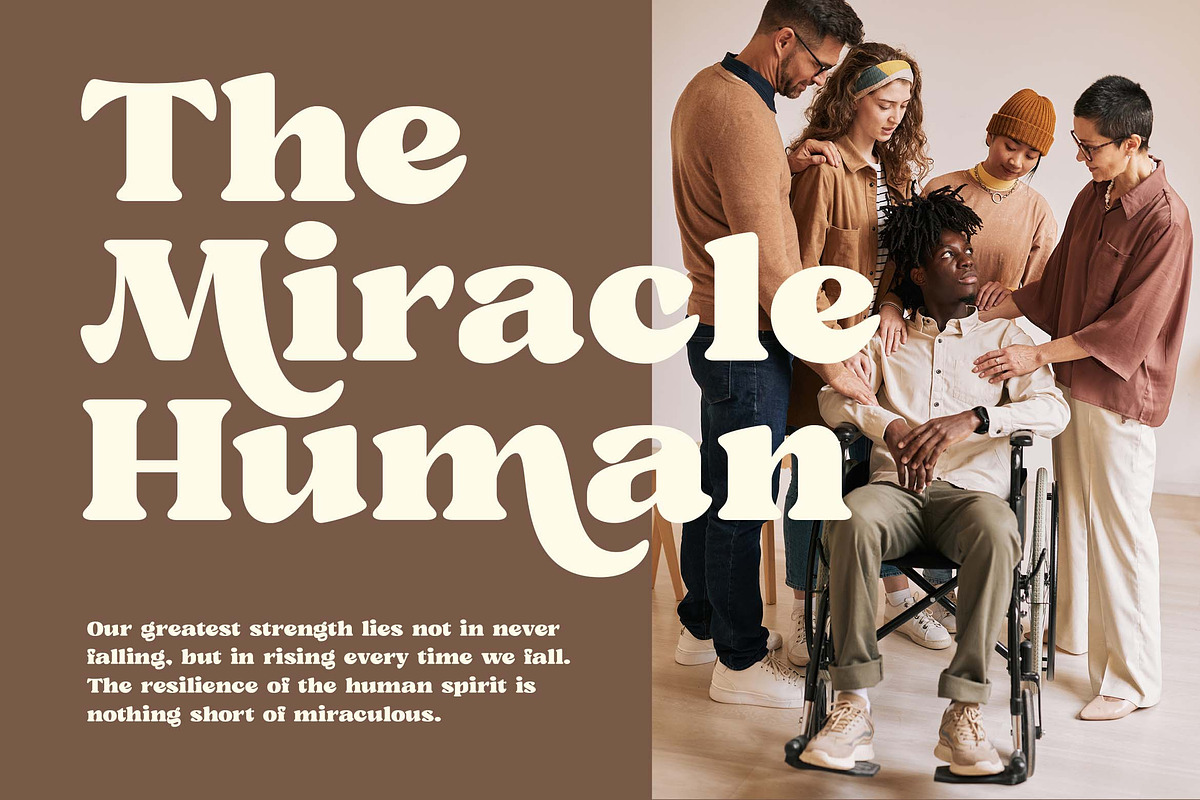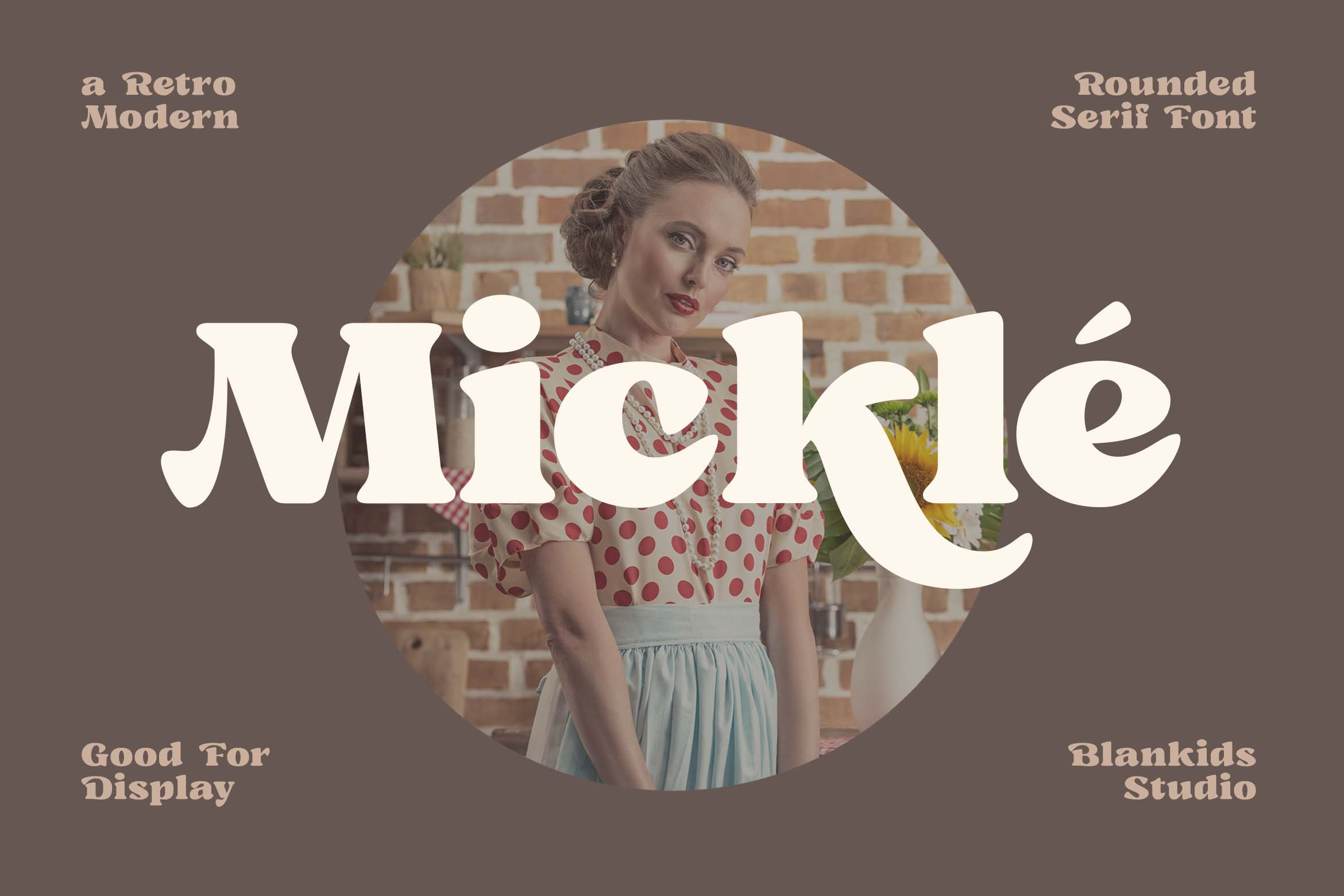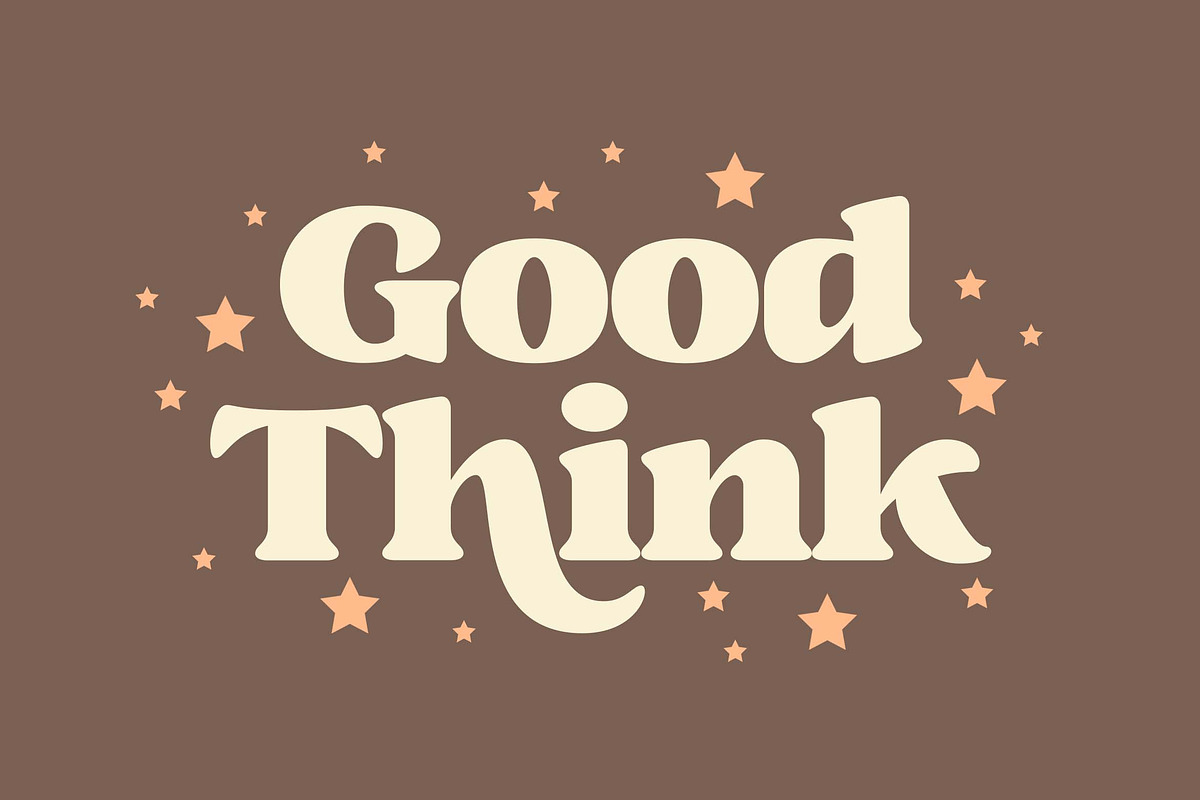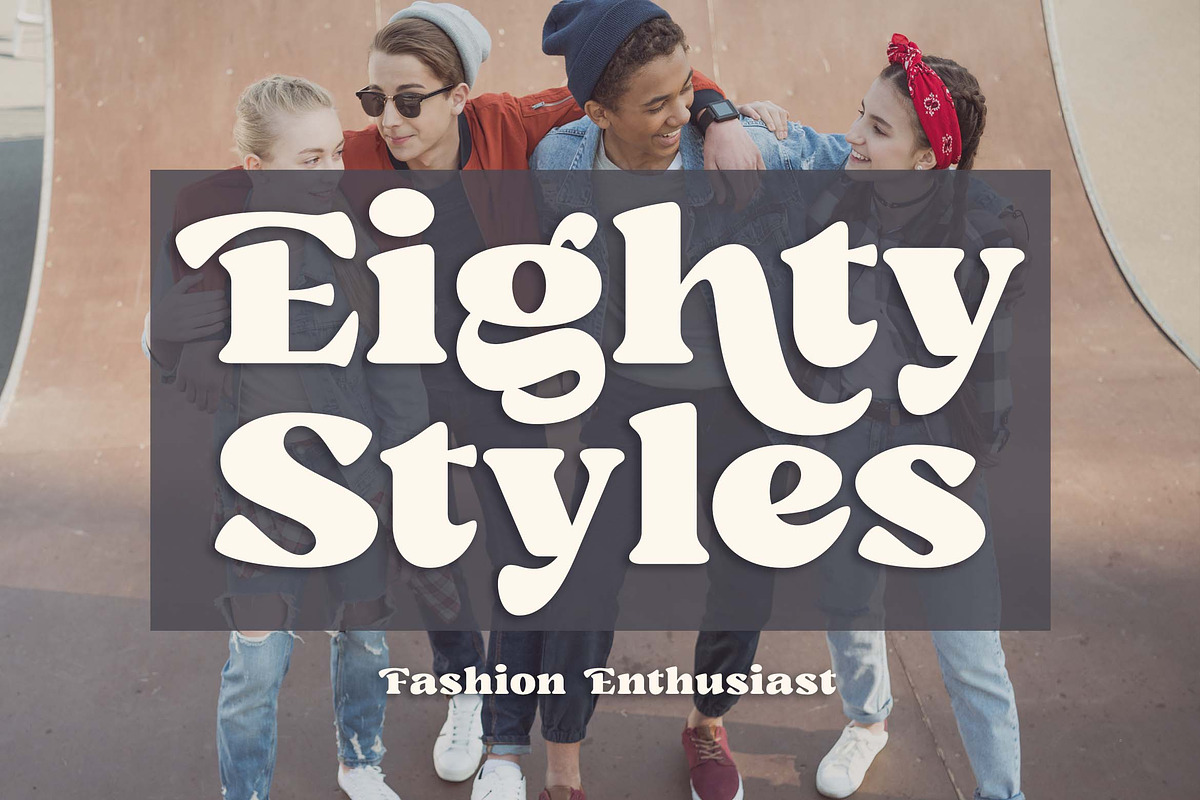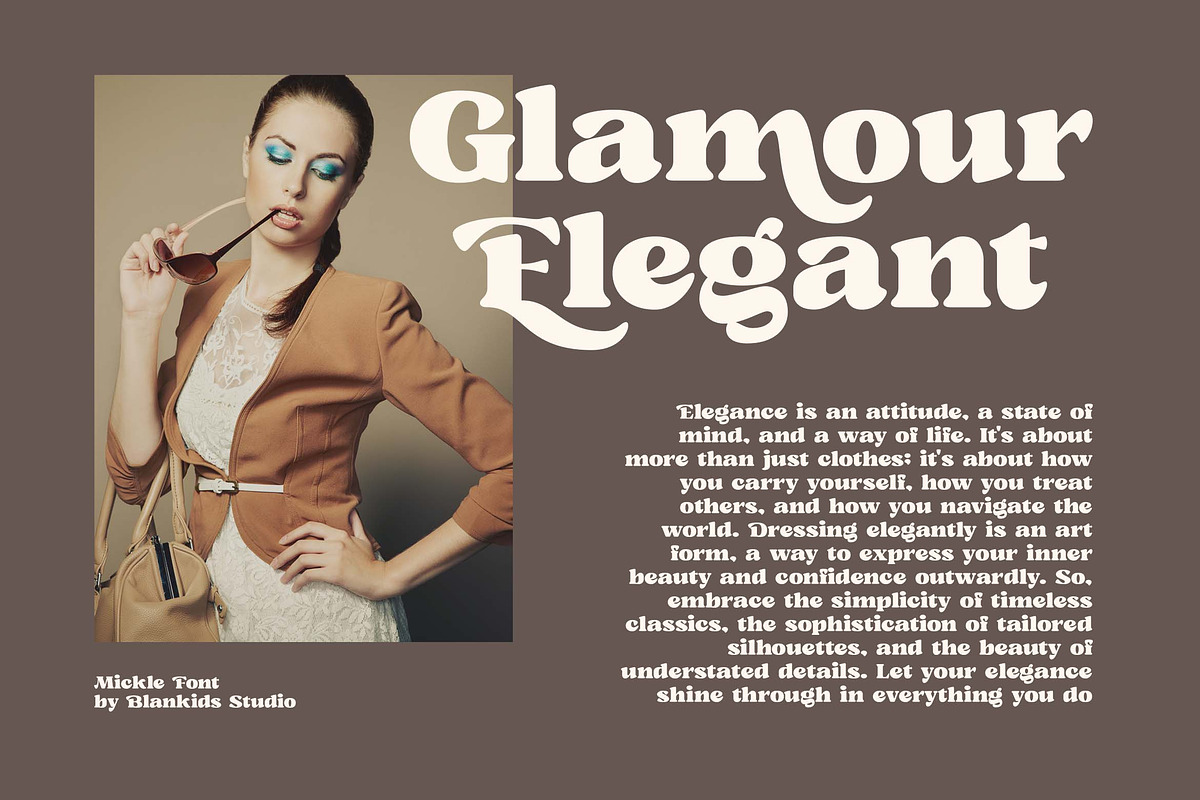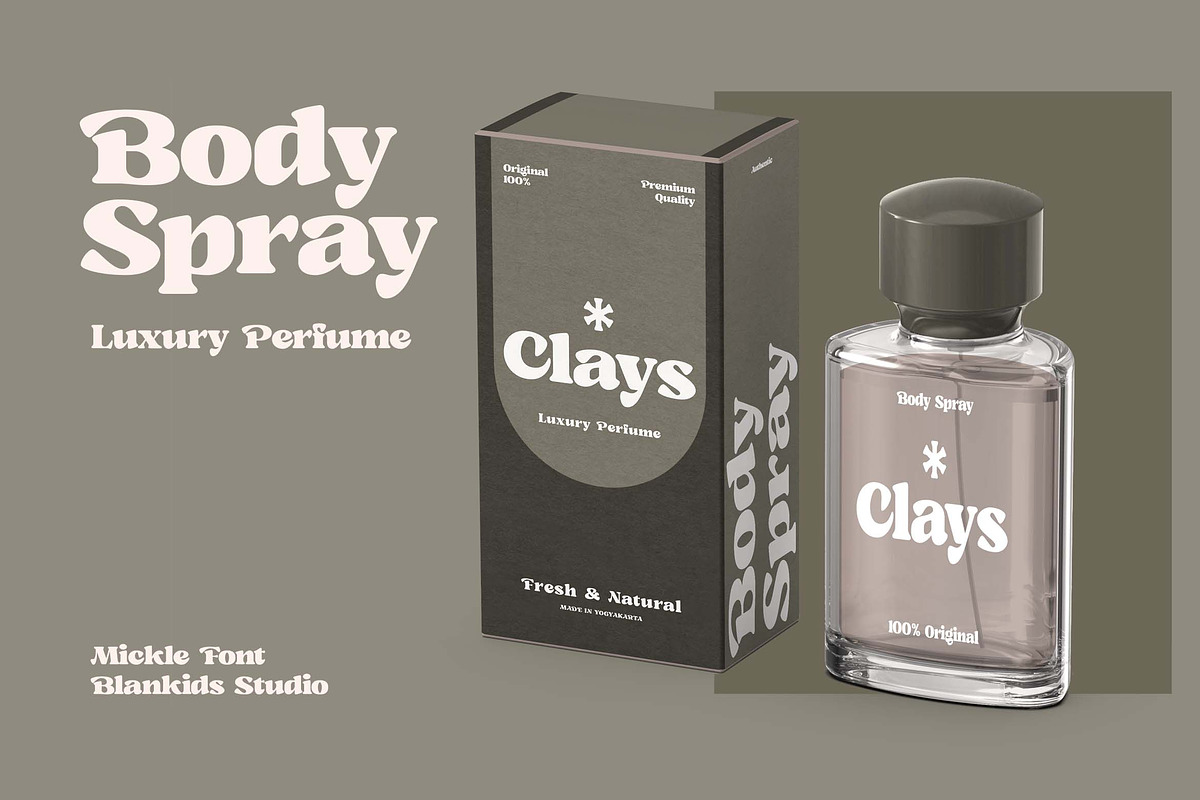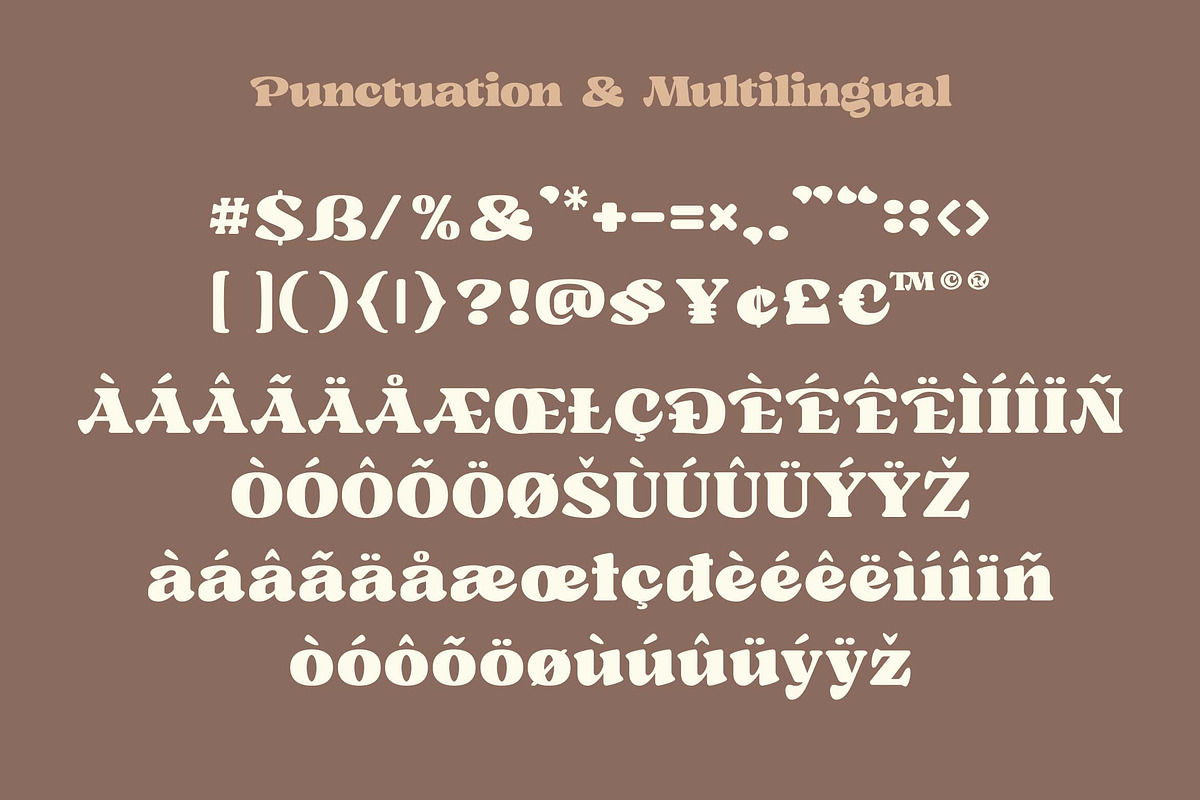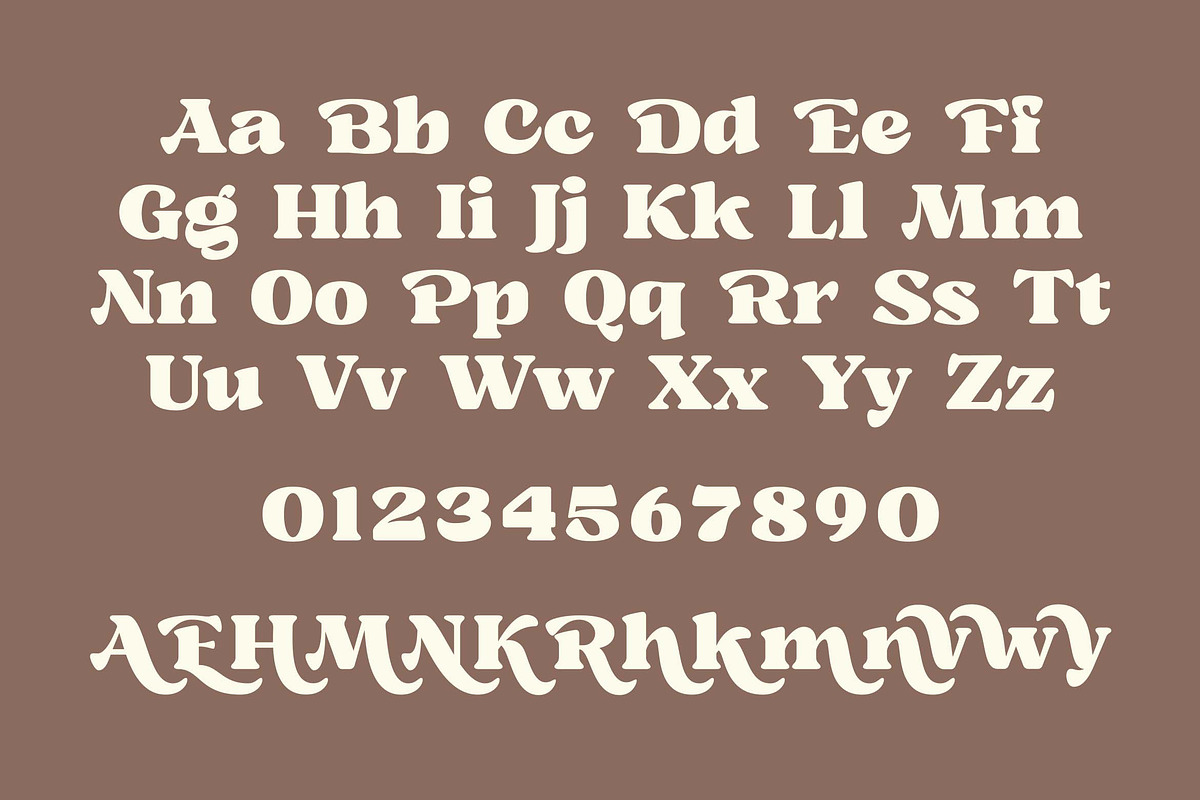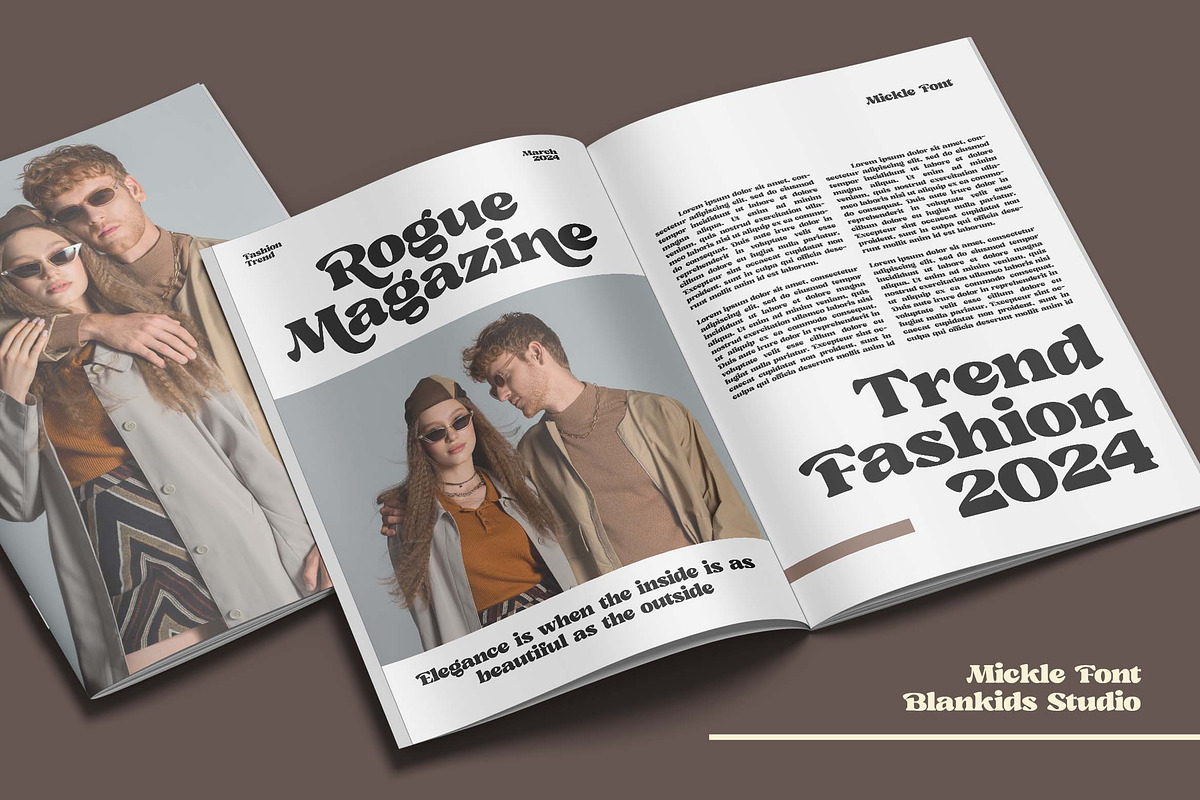
Mickle a Retro Modern Font
Introducing Mickle, a captivating serif font with a retro-modern twist. Its rounded serif and sleek lines evoke a sense of timeless elegance with a contemporary edge. Perfect for branding, packaging, logos, corporate designs, and more, Mickle adds a touch of sophistication to any project. With its modern, minimalist aesthetic and luxurious vibe, Mickle is the perfect choice for those seeking to make a bold statement with style.